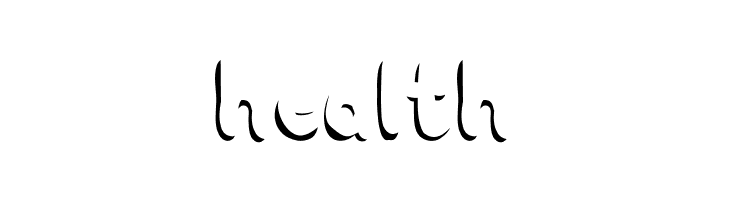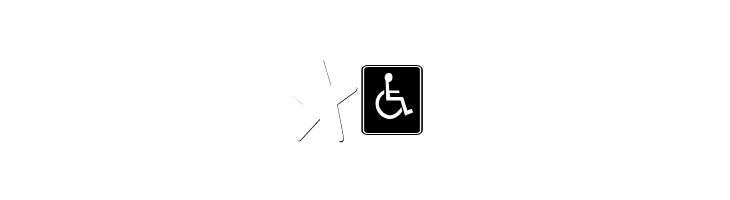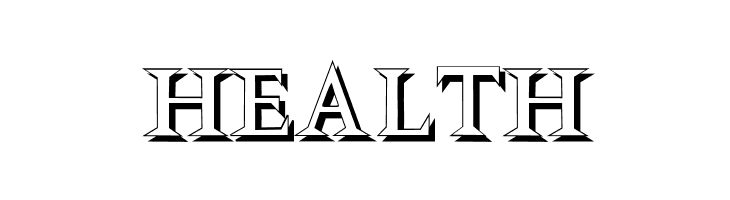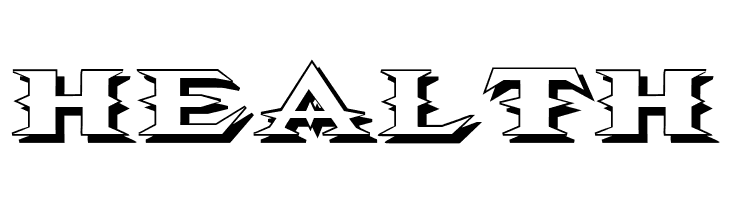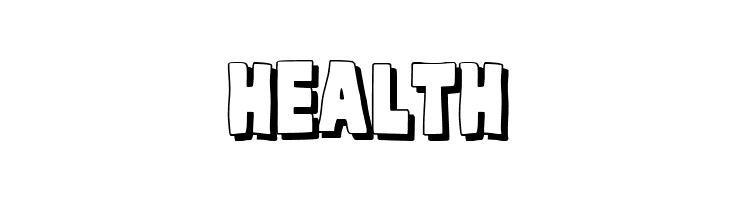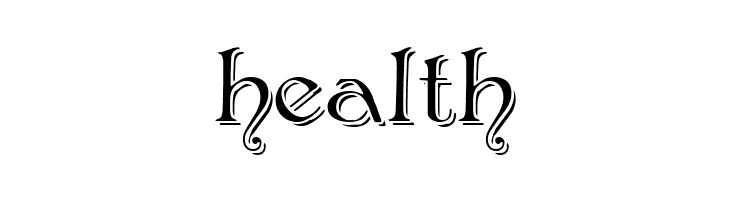
( Fonts by Måns Grebäck )
A playful, shadowed font with a bold, artistic style.
A bold, shadowed font with sharp serifs and a dramatic, modern aesthetic.
A bold, decorative font with sharp angles and a shadow effect, ideal for dramatic designs.
A bold, playful font with a shadow effect, perfect for comic and whimsical designs.
A bold, playful font with a three-dimensional shadow effect.
A playful, bold font with a shadow effect and rounded characters.
An ornate serif font with a shadow effect, offering a classic and elegant style.